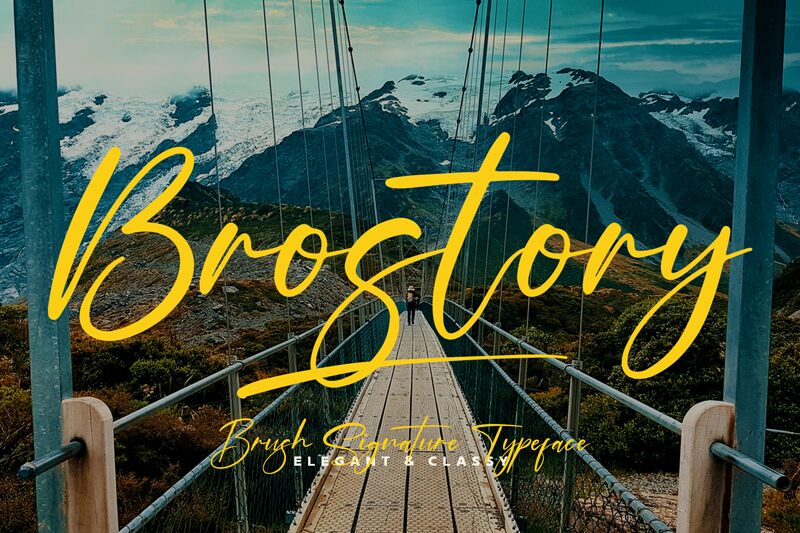
Brostory
Brostory, a captivating handwritten font crafted by Wildan Type, exudes an elegant and sophisticated charm. The flowing, script-like strokes create a sense of graceful movement, evoking a sense of timeless sophistication. The subtle variations in line thickness and the organic, natural rhythm of the letterforms lend an air of effortless refinement to any text they adorn.
Brostory's versatility makes it a compelling choice for a wide range of design applications. Its elegant aesthetic lends itself beautifully to high-end branding, wedding invitations, and editorial layouts, where it can infuse a touch of refined elegance. Furthermore, the font's legibility and warm, inviting qualities make it an excellent selection for personal correspondence, stationery, and more intimate design projects.
Wildan Suprian Syah